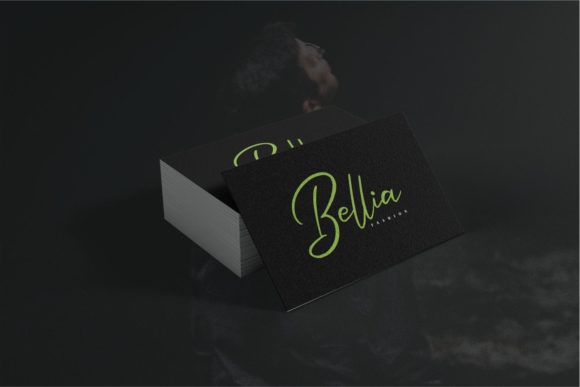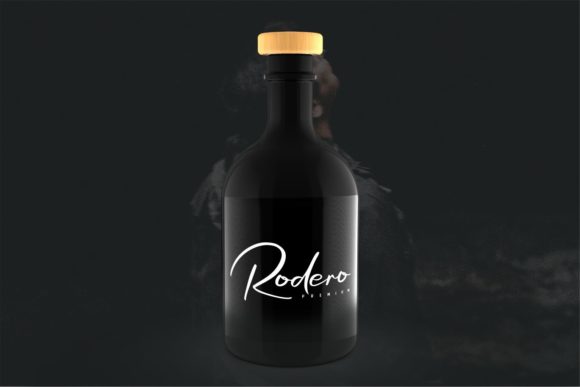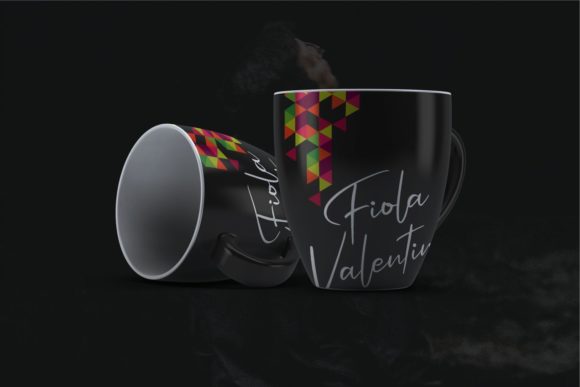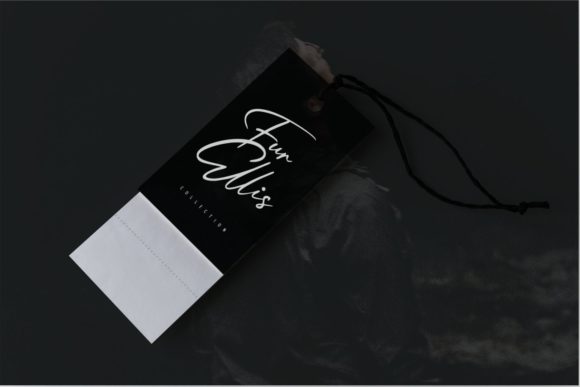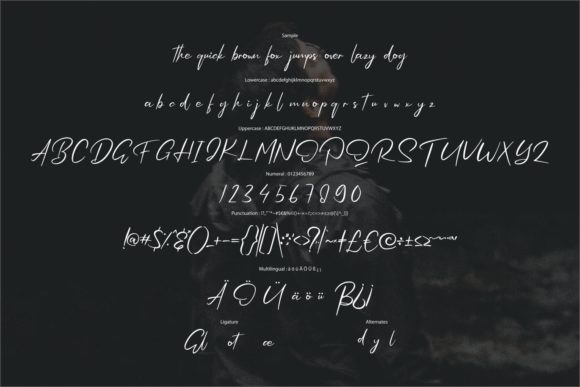
Introducing Elliot Font: Elevate Your Designs with Elegance and Sophistication
Are you a designer or crafter looking for a font that exudes class, elegance, and modernity? Look no further than Elliot Font, a stunning script font that can elevate your designs to new heights. With its refined and beautiful aesthetic, Elliot Font is perfect for a wide range of applications, from logos and branding to invitations, stationery, wedding designs, social media posts, and more!
The Characteristics of Elliot Font
So, what makes Elliot Font so special? Here are just a few of its key characteristics:
- Classy and Elegant: Elliot Font boasts a sophisticated and refined look that’s perfect for designs that require a touch of luxury and glamour.
- Modern Aesthetic: Despite its classic feel, Elliot Font also has a distinctly modern edge that will make your designs stand out from the crowd.
- Versatile: Whether you’re creating a logo, invitation, or social media post, Elliot Font is versatile enough to adapt to any design style or format.
- Beautifully Crafted: Each letter in Elliot Font has been carefully crafted to ensure that it looks beautiful and elegant on its own, and in combination with other letters.
Uses for Elliot Font
So, what can you use Elliot Font for? The possibilities are endless! Here are a few ideas to get you started:
- Logos and Branding: Create a lasting impression with a logo that exudes elegance and sophistication. Elliot Font is perfect for luxury brands, high-end services, and premium products.
- Invitations and Stationery: Add a touch of class to your invitations, greeting cards, and stationery with Elliot Font. It’s perfect for formal events, weddings, and special occasions.
- Wedding Designs: Make your wedding designs truly unforgettable with Elliot Font. Use it for wedding invitations, programs, and decorations to create a cohesive and elegant look.
- Social Media Posts: Elevate your social media posts with Elliot Font. Use it to create eye-catching graphics, quotes, and announcements that will make your followers take notice.
Why Choose Elliot Font?
With so many fonts to choose from, why should you choose Elliot Font? Here are just a few reasons:
- Unique and Exclusive: Elliot Font is a unique and exclusive font that will set your designs apart from the rest.
- High-Quality: Elliot Font is a high-quality font that’s been carefully crafted to ensure that it looks beautiful and elegant in any design.
Tips for Using Elliot Font
Here are a few tips for getting the most out of Elliot Font:
- Use it Sparingly: Elliot Font is a powerful font that can quickly become overwhelming if overused. Use it sparingly to create emphasis and add elegance to your designs.
- Experiment with Colors: Elliot Font looks beautiful in a range of colors, from classic black and white to bold and bright hues. Experiment with different colors to find the perfect look for your design.
- Pair it with Other Fonts: Elliot Font can be paired with other fonts to create a unique and interesting look. Experiment with different font combinations to find the perfect pairing.
In conclusion, Elliot Font is a beautiful and refined script font that’s perfect for designers and crafters looking to add a touch of elegance and sophistication to their designs. With its classy and modern aesthetic, Elliot Font is versatile enough to be used for a wide range of applications, from logos and branding to invitations, stationery, wedding designs, social media posts, and more! So why wait? Download Elliot Font today and start elevating your designs to new heights!